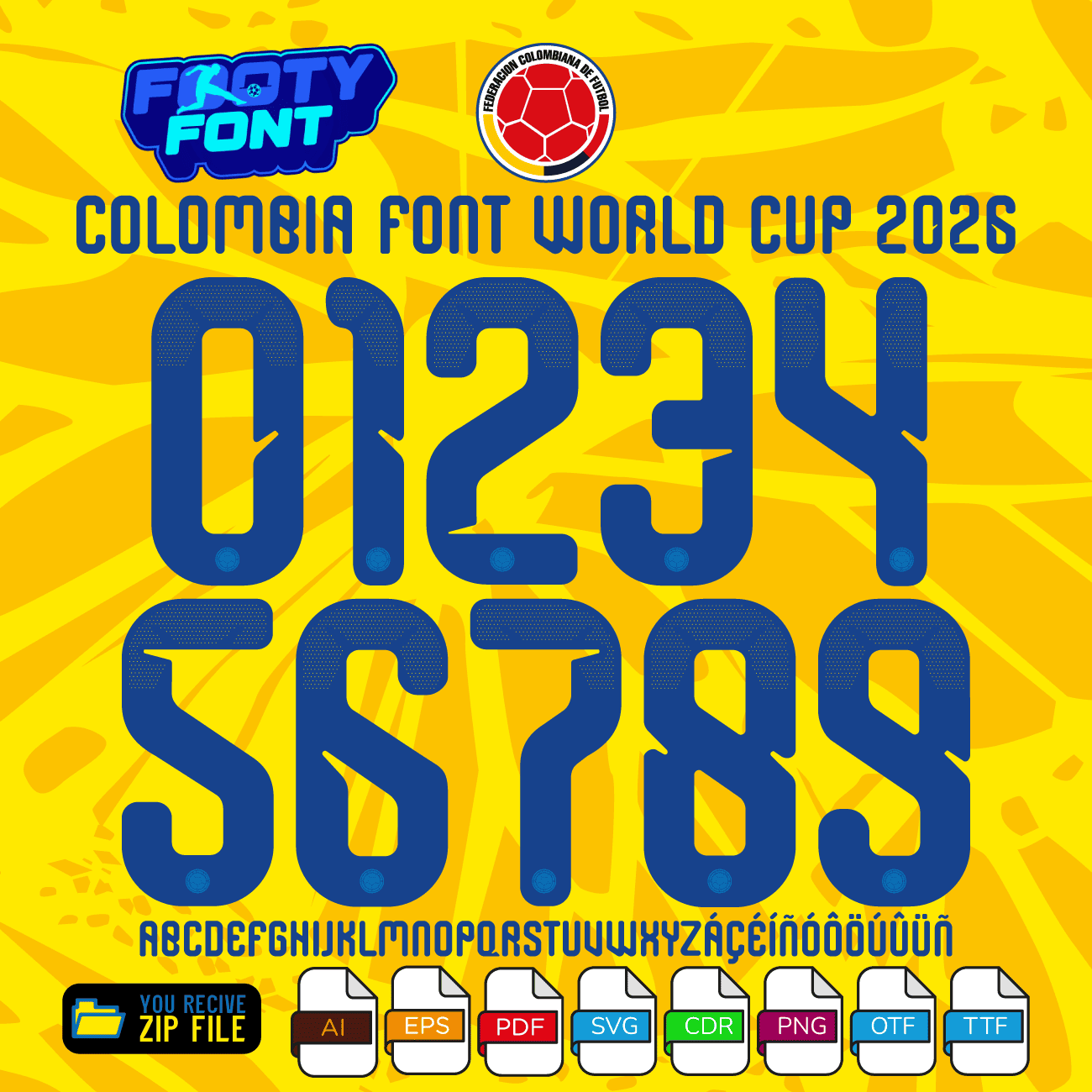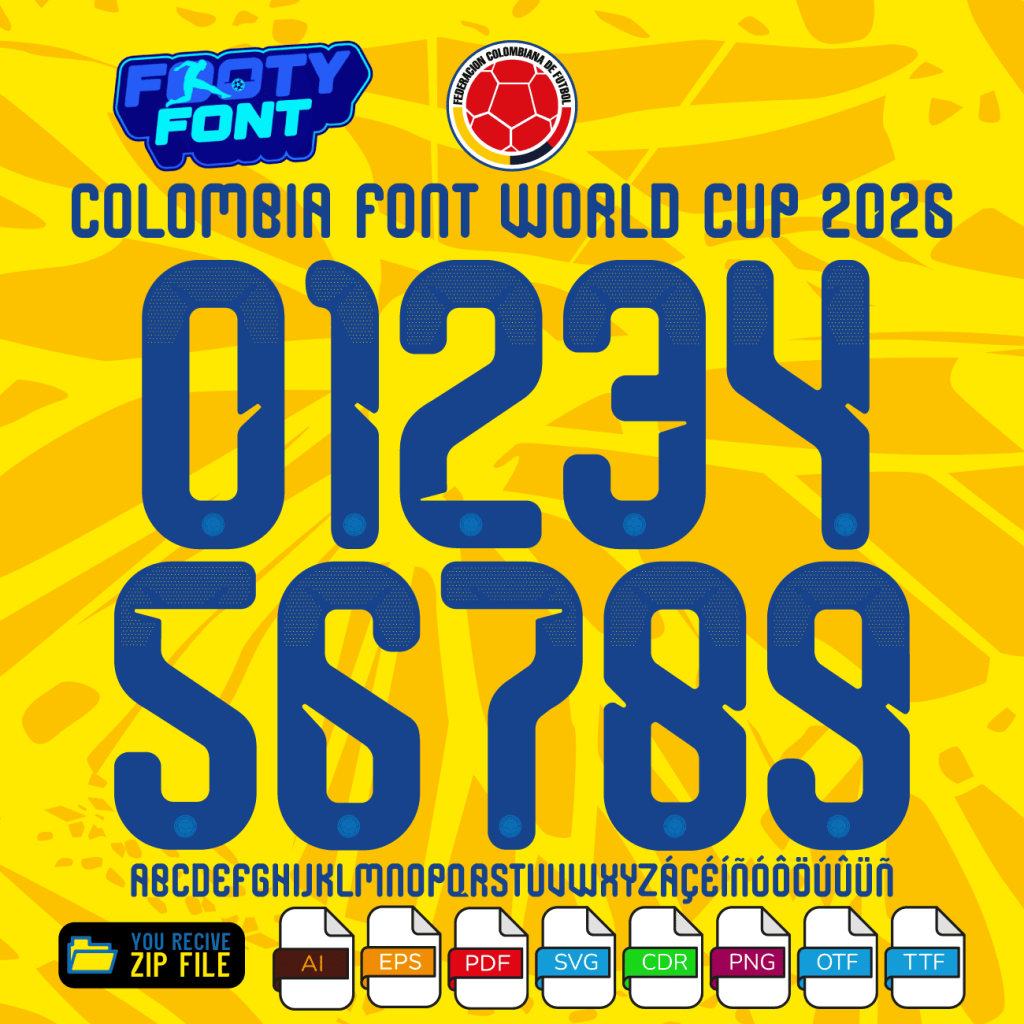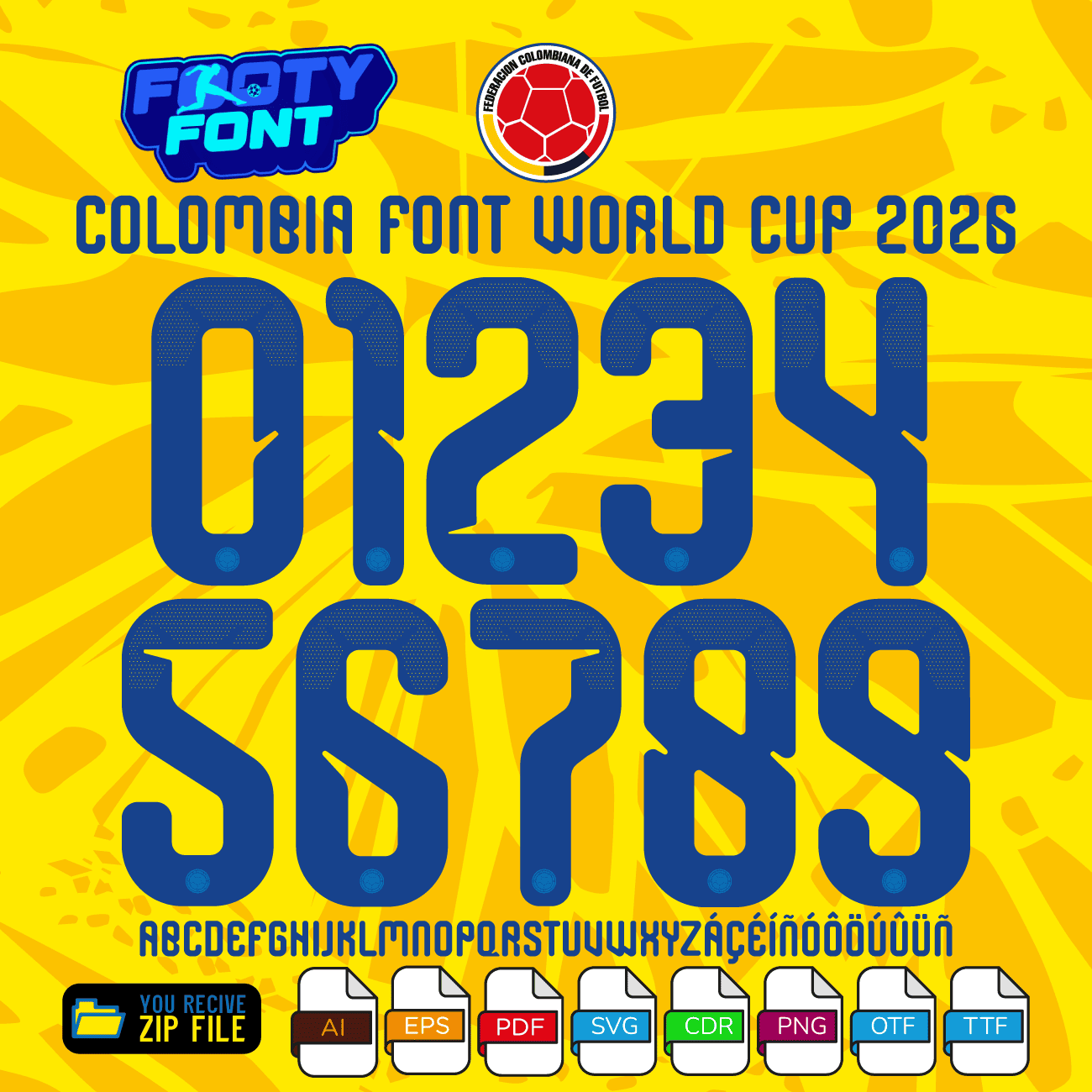
Colombia Font World Cup 2026 – Home Kit Typeface Unleash your creativity with the Colombia font World Cup 2026 , inspired by the iconic yellow kit of Los Cafeteros. This exclusive football typeface captures the style worn by Colombia’s stars on the world’s biggest stage and is perfect for fans, merch designers, or anyone who wants to bring the rhythm of Colombian football into their projects. A complete look at the Colombia Font World Cup 2026 Home, featuring the full number set and a real-world match photo of the Colombian national team. Why Choose This Colombia 2026 Font?